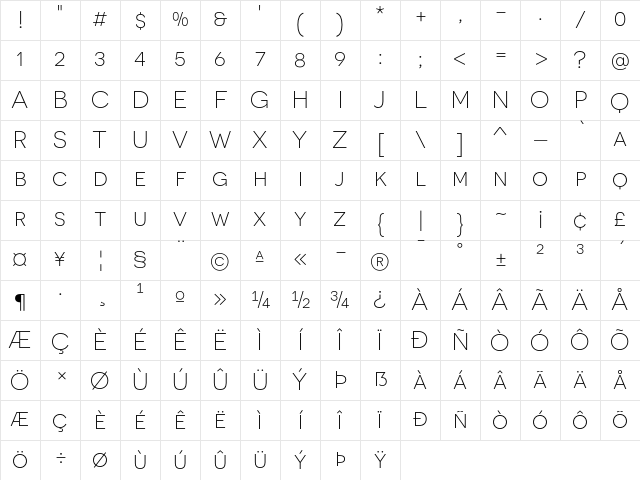
Complete Novecento sans wide Light glyph index. Displaying only characters natively supported by Novecento sans wide Light font.
Novecento sans wide is a composed and adaptable typeface that performs quietly and consistently across a wide range of design contexts. Its slender proportions lend an understated elegance to any composition.
Who designed the Novecento sans wide Light font?